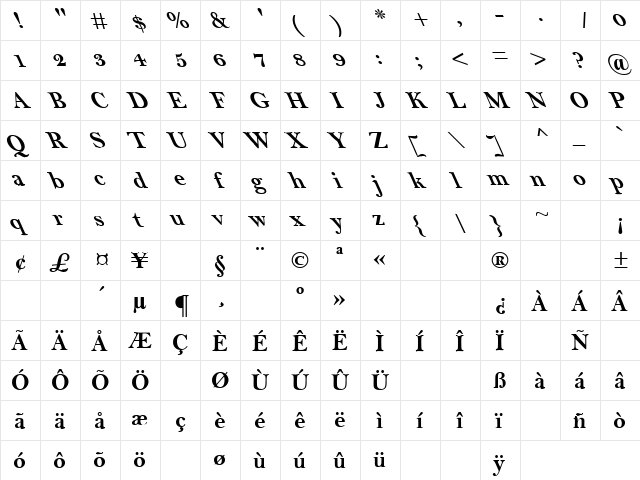
Melissa 1 Regular
Design Context for Melissa 1 Typeface
Melissa 1 offers clean, dependable letterforms without strong stylistic allegiance, making it a practical choice for designers who need flexibility.
Pro Tip: Use Melissa 1 in both headline and body roles to test its range before committing to a single application.